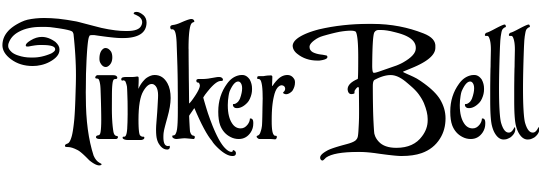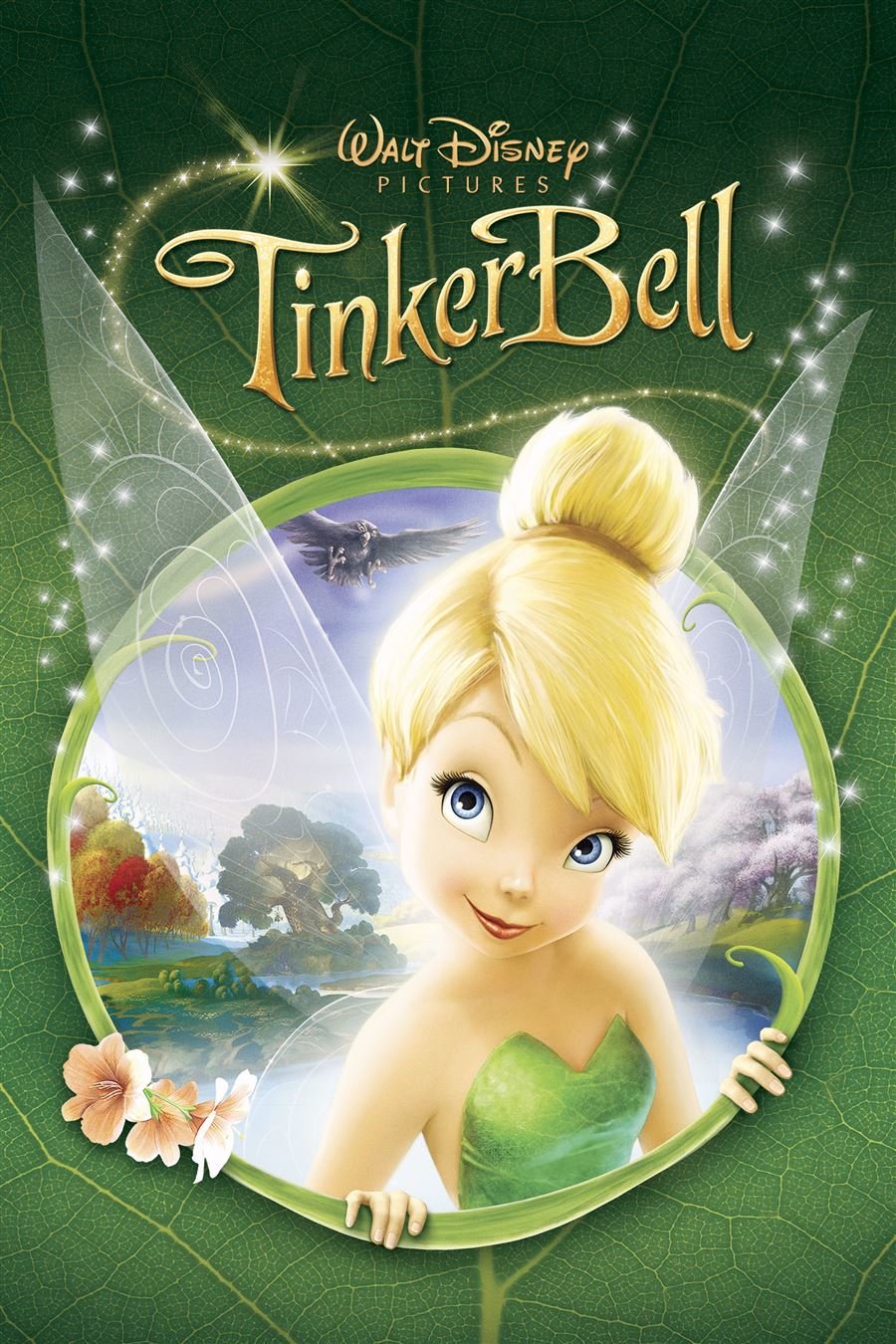
Tinker Bell Font
The title lettering in the poster uses a script font named Tinkerbell created by DeviantArt user Kustren. You can download the font for free in the Fonts Used Section.